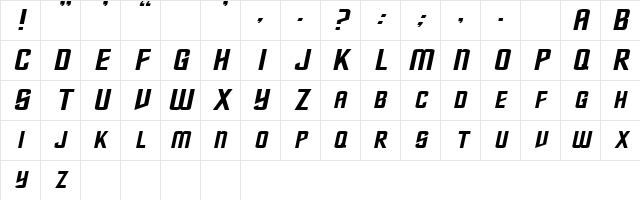
NebulaExtended Italic
NebulaExtended Family
NebulaExtended Italic
Design Context for NebulaExtended
NebulaExtended is a composed and adaptable typeface that performs quietly and consistently across a wide range of design contexts. The slanted form adds forward momentum and visual energy.
Pro Tip: Use NebulaExtended for emphasis, pull quotes, and subheadings where its slanted energy can add rhythm to the layout.